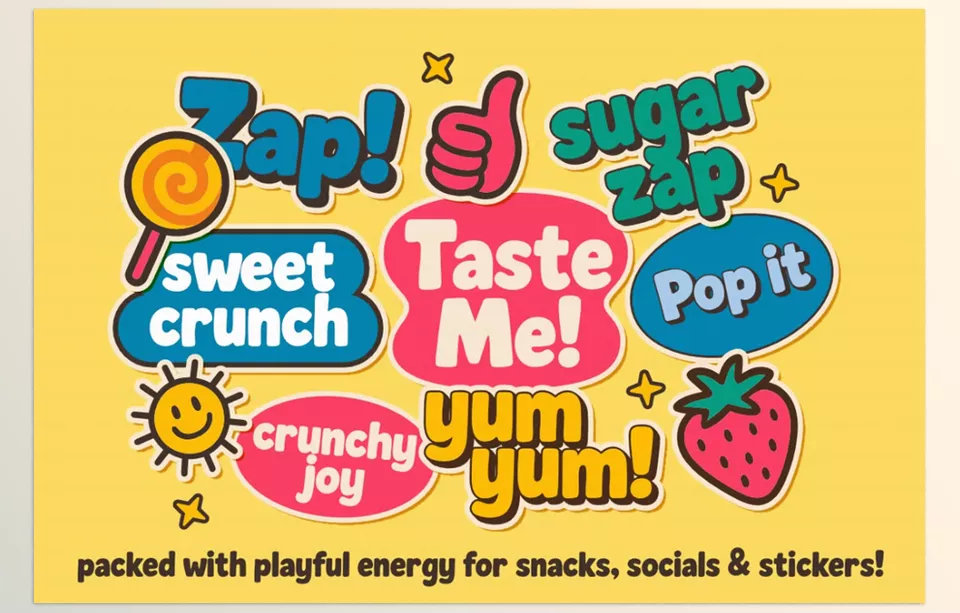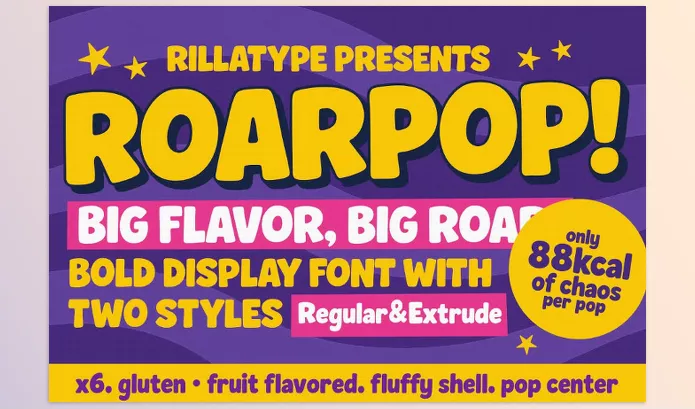
Roarpop Fun Bold Font conveys the fun aesthetics of food packaging and childhood snacks in a vibrant typeface. The clean and bold lines of “Snack” add fun and confidence to any project.
Rillatype – Roarpop Fun Bold Font Features
• Fun Versatility: Adds energy and cheerfulness to food branding, kids products, merchandise, and even social media posters.
• Two-Dimensional Styles: It is provided in Regular and extruded styles for more layering and mixing options.
• Full Character Set: Each typeface provides a complete collection of uppercase, lowercase letters, and numbers, punctuation, and basic symbols.
Preview Roarpop Fun Bold Font
Image 1: Add a burst of energy to your designs with a font that speaks playfulness and confidence.
Roarpop Fun Bold Font - Add a burst of energy to your designs with a font that speaks playfulness and confidence.
Image 2: Transform your branding with a typeface that’s as bold and vibrant as your favorite childhood treats.
Roarpop Fun Bold Font - Transform your branding with a typeface that’s as bold and vibrant as your favorite childhood treats.